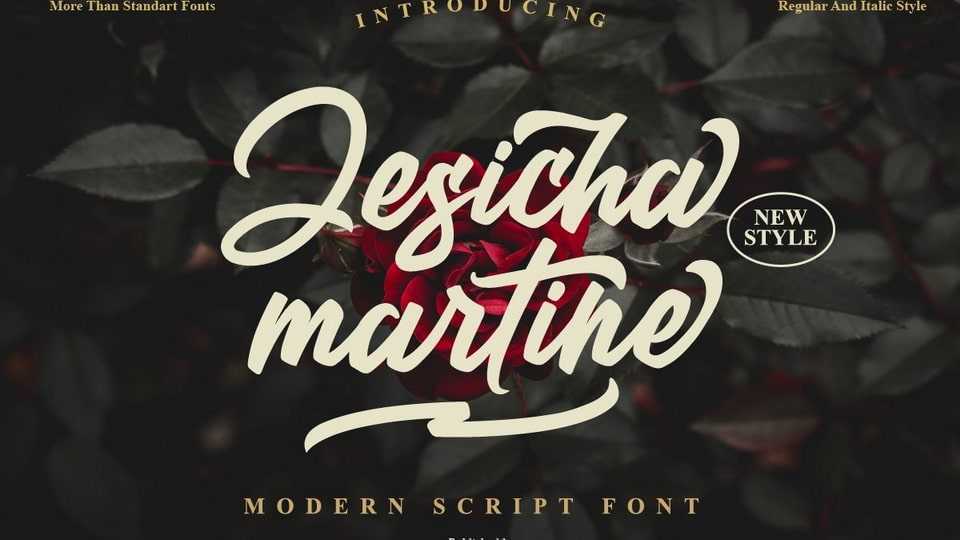
Download Jesicha Martine font, a stylish handwritten typeface. Jesicha Martine font will add a luxury spark to any design project that you wish to create!